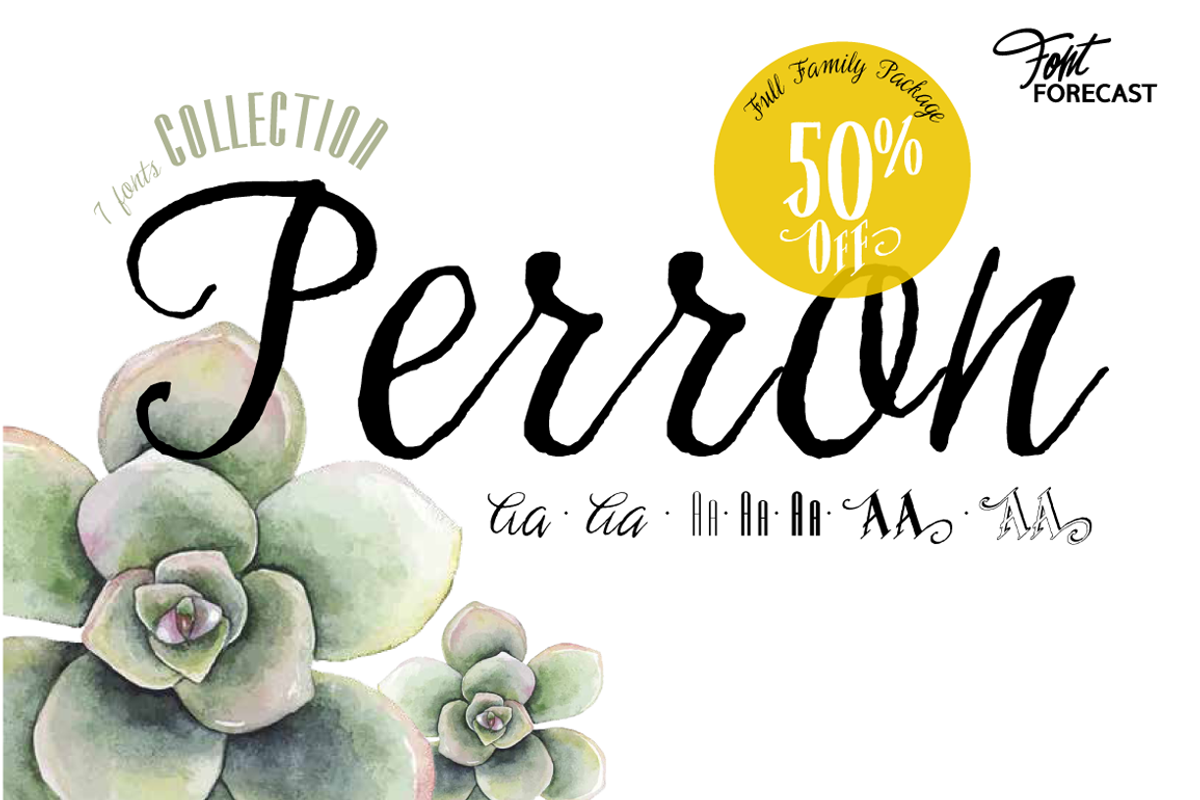
Perron
Designed by Hanneke Classen in 2014. Meet the successor of our bestselling design kit 'Chameleon': Perron. The concept of designing multiple contrasting designs under the same name was first introduced by Fontforecast in TyfoonSans and TyfoonScript. Two font families that were designed to complement each other. And that's exactly what this new release does. With the three designs in Perron, which means 'platform' in dutch, you will be able to take your design projects where ever you want them to go. This flexible kit consists of 7 fonts in three basic designs, and when combined Perron No1, No2 and No3 reïnforce each others charm. This offers great potential for creating lively layouts for many different projects, e.g. invites, menu's, magazines, brochures, packaging, greeting cards, T-shirts, etc.
Perron No1 is a serif display font with large and small Caps. This font requires an Opentype savvy application to reach its full potential. Turn on contextual alternates and beginning and ending characters are replaced by their alternative versions, as you type. Stylistic sets and swashes offer even more variations. Perron No1 comes in two versions: No1 and No1 Shade. They can be used separate or layered for a colorful or shaded effect (if your application allows you to stack text frames).
Perron No2 is a charming handwritten font, with slightly rough contours, that was added for an extra personal touch. It comes in regular and Italic.
Perron No3 is a clean, tall and very skinny font family. It has large and small Caps and comes in three weights: Light, Regular and Bold. Because of its clean appearance No3 adds a modern touch to the design kit.